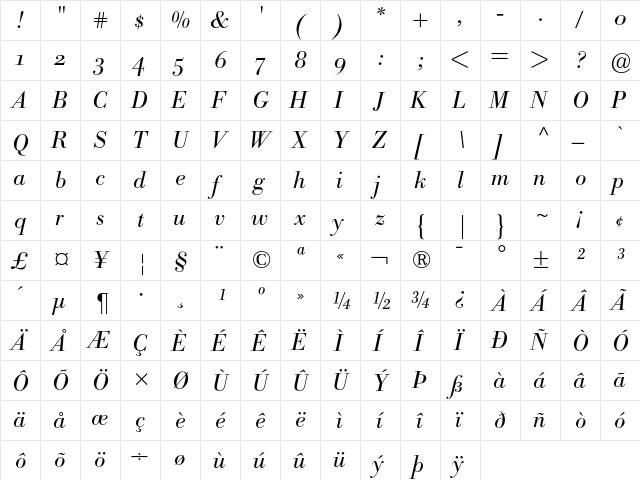
Bodoni BE Light Italic Oldstyle Figures
Design Context for Bodoni BE Typeface
Bodoni BE brings classic typographic sensibility to the table — its serifs and measured letterforms reflect centuries of print heritage. Its italic angle brings a sense of urgency and motion to the letterforms. Its slender proportions lend an understated elegance to any composition.
Pro Tip: Set Bodoni BE at slightly larger body copy sizes than you would a regular-weight serif to compensate for its delicate stroke contrast.